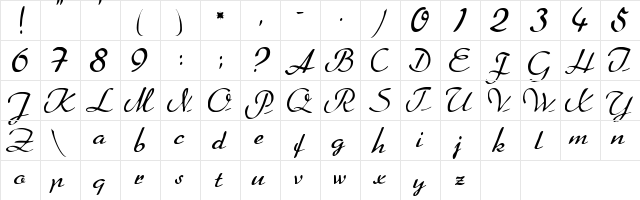
FalironScriptSSK Regular
Design Context for FalironScriptSSK Typeface
FalironScriptSSK flows with the natural rhythm of handwritten lettering, making it ideal for designs that call for warmth and personal expression.
Font Pairing: Combine FalironScriptSSK with a simple geometric sans for maximum contrast — the tension between flowing curves and clean structure is a classic typographic pairing.
Pro Tip: Pair FalironScriptSSK with a clean sans-serif for supporting text. The contrast between fluid script and geometric structure creates an elegant typographic hierarchy.